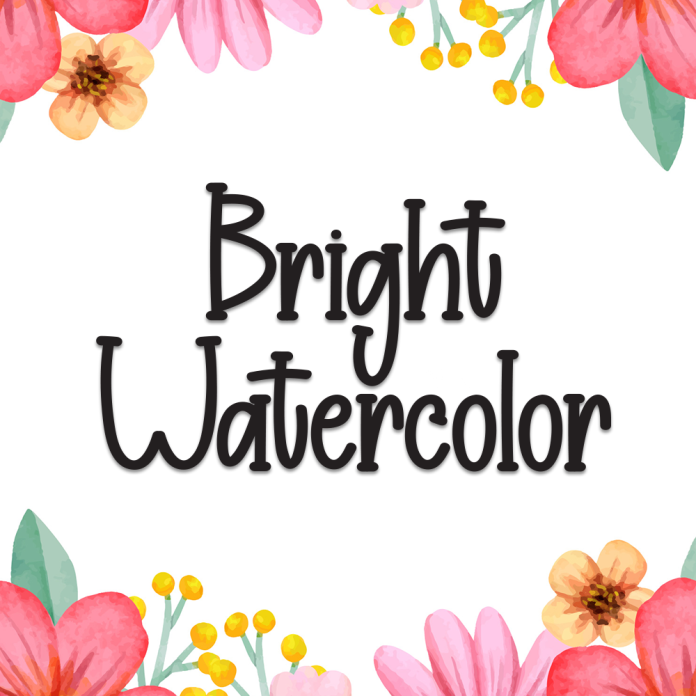
Bright Watercolor is a vivid and expressive display font inspired by brush strokes and watercolor textures. It captures the essence of handcrafted art with bold, flowing letterforms that look like they’ve been painted directly on canvas.
Bold and vibrant watercolor effect
Artistic brushstroke style with organic movement
Ideal for posters, art prints, product packaging, event titles, and creative branding
Make your designs pop with the colorful, artistic charm of Bright Watercolor – a font that turns every word into a masterpiece.